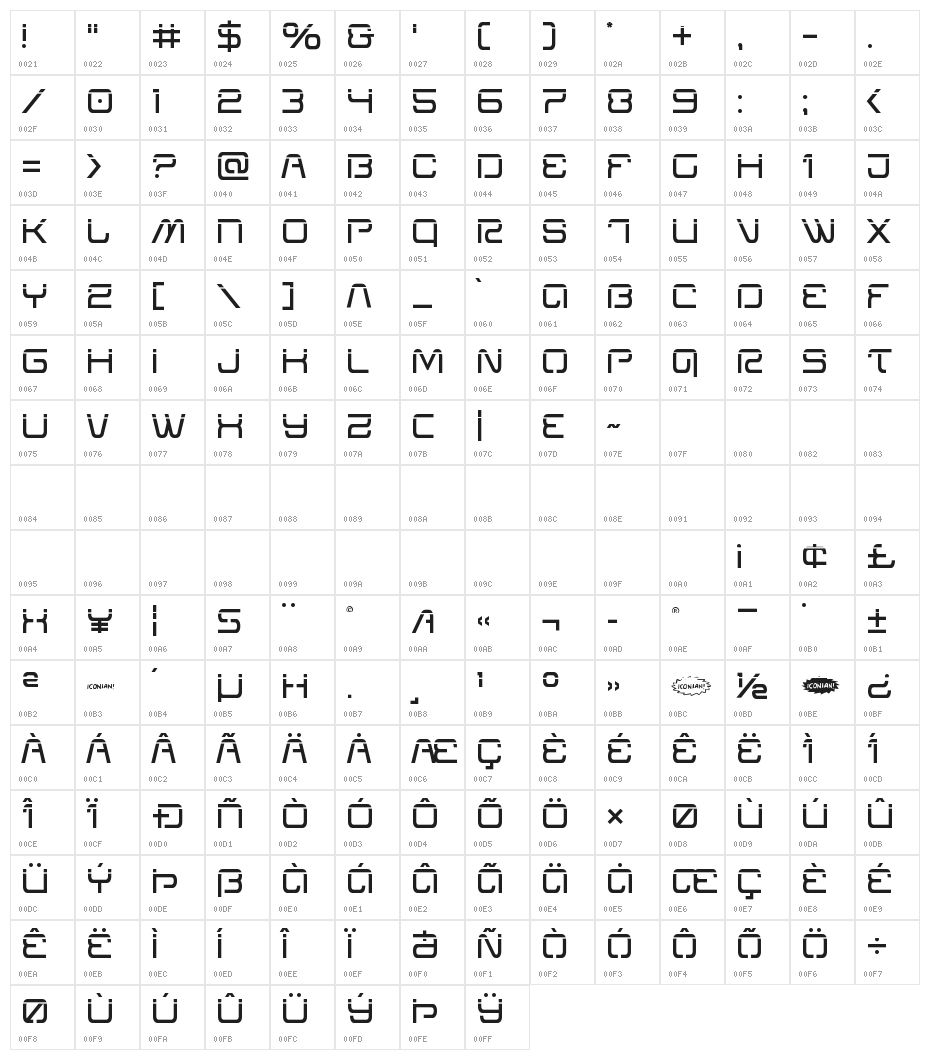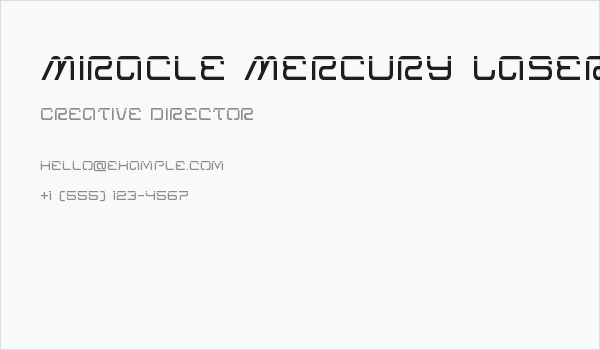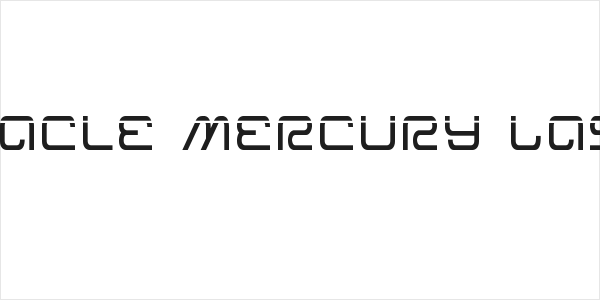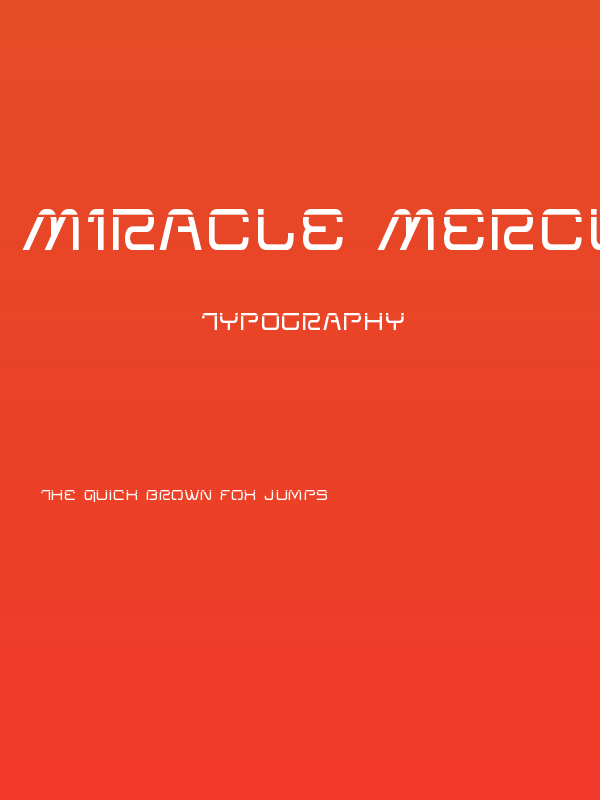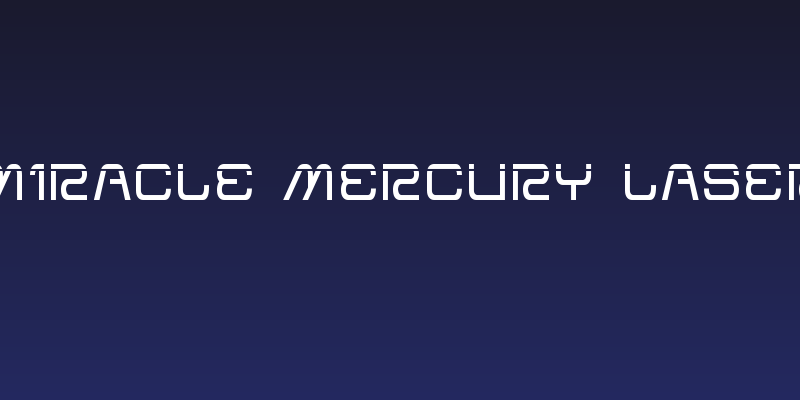
Miracle Mercury Laser Font
Miracle Mercury Laser Description
This font features a futuristic and geometric design, characterized by its sharp angles and clean lines. The letters are constructed with a unique stencil-like appearance, where certain segments are intentionally omitted, creating a modern and tech-inspired aesthetic. The uppercase and lowercase letters maintain a consistent style, with a uniform height that enhances readability. The numerals and special characters follow the same design principles, ensuring a cohesive look across all glyphs. This font's distinct style makes it suitable for projects that require a contemporary and innovative touch.
| Proposed Projects | Ideal for technology branding, sci-fi movie posters, video game titles, and modern advertising campaigns. |